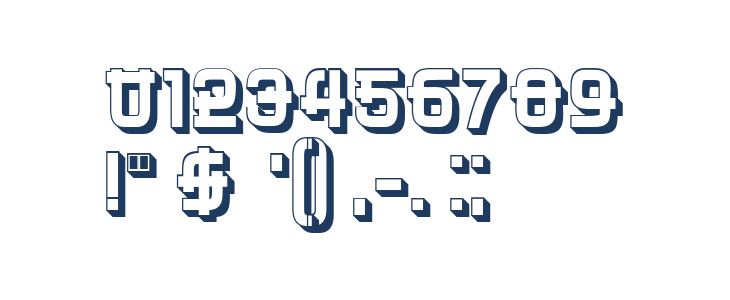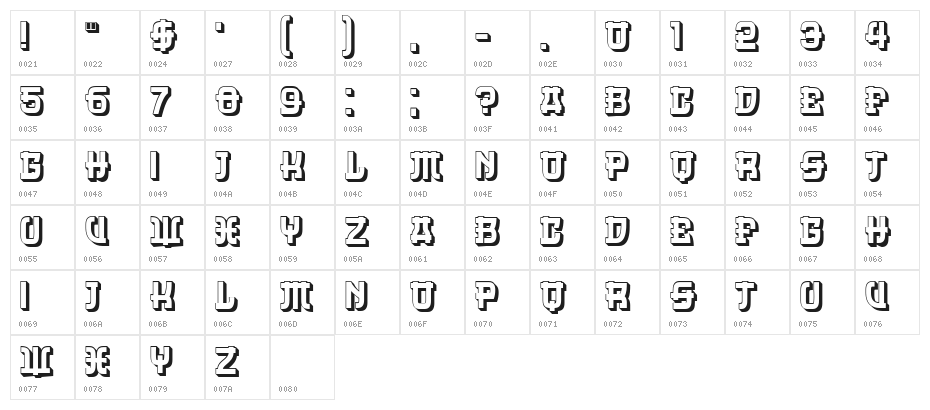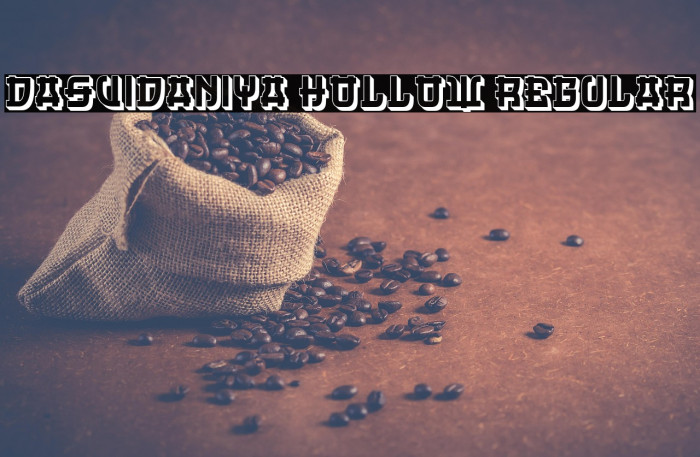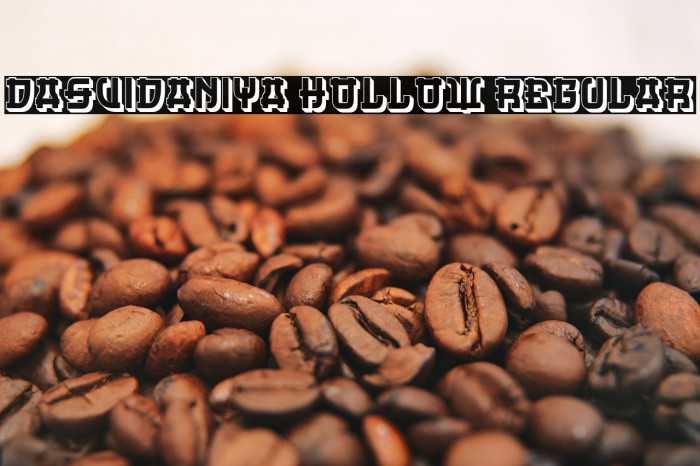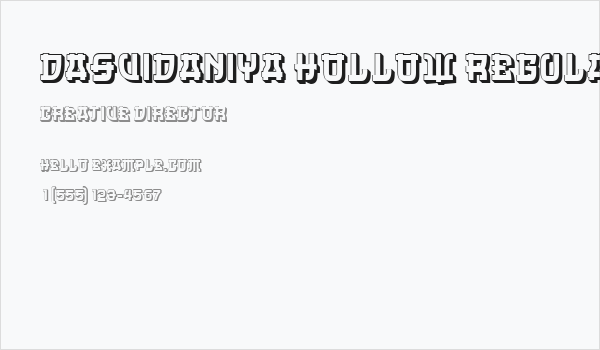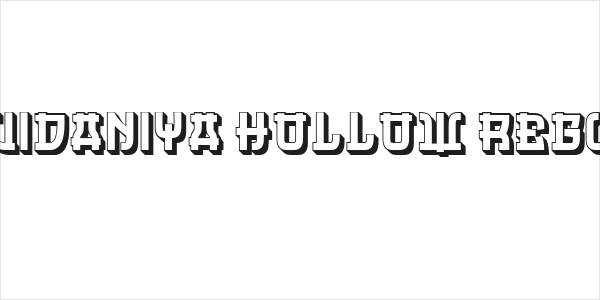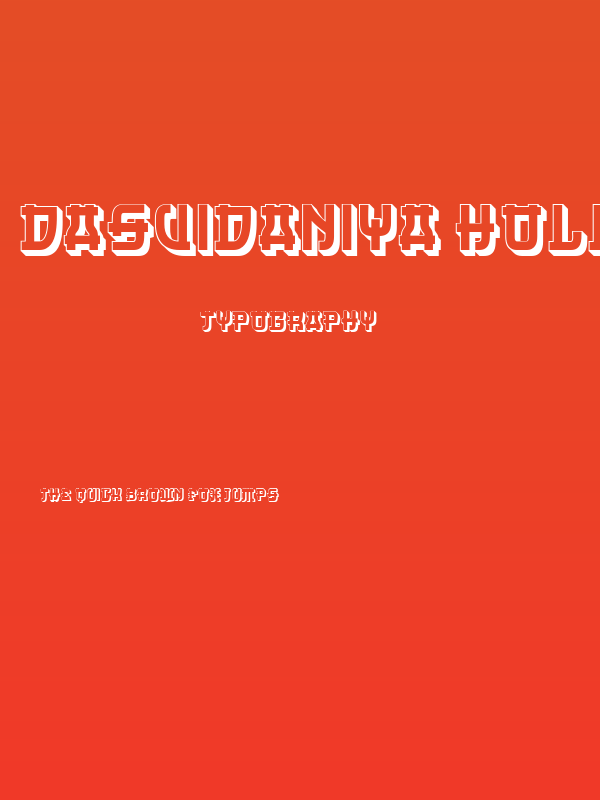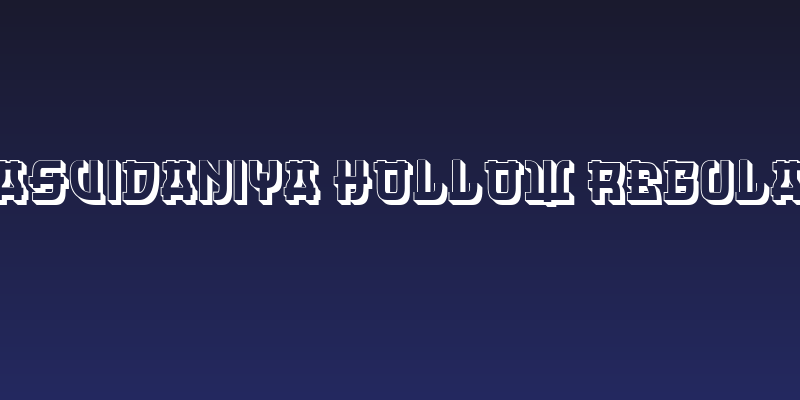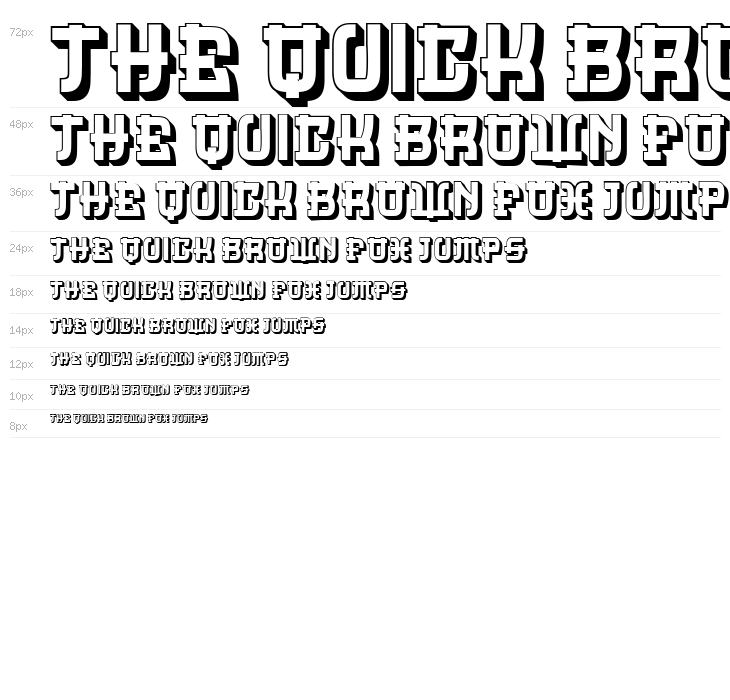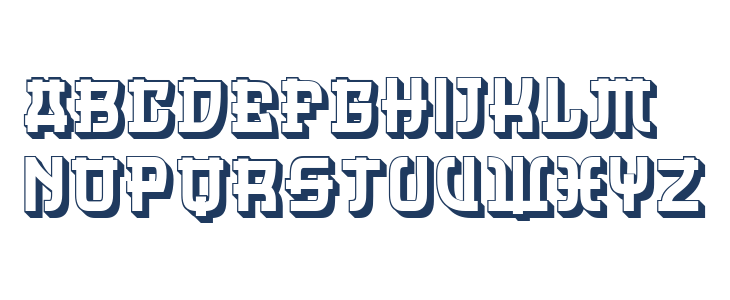
Dasvidaniya Hollow Regular Font
Dasvidaniya Hollow Regular Description
This font features a bold, hollow design with a strong 3D effect, giving each character a striking and dynamic appearance. The letters are uppercase and lowercase, with numbers and special characters included. The style is reminiscent of retro or vintage signage, with thick outlines and a shadow effect that adds depth. The characters are evenly spaced, ensuring readability despite the boldness of the design. This font is ideal for creating eye-catching headlines or logos that require a touch of nostalgia and impact.
| Proposed Projects | Ideal for retro-themed posters, logos, signage, and any project needing a bold, eye-catching typeface. |